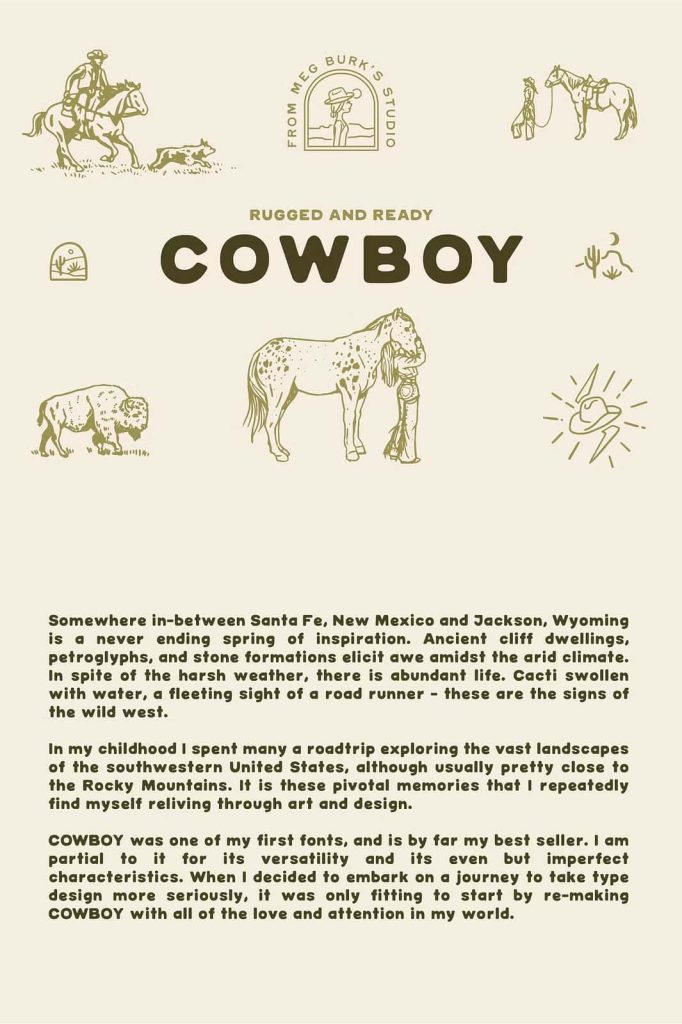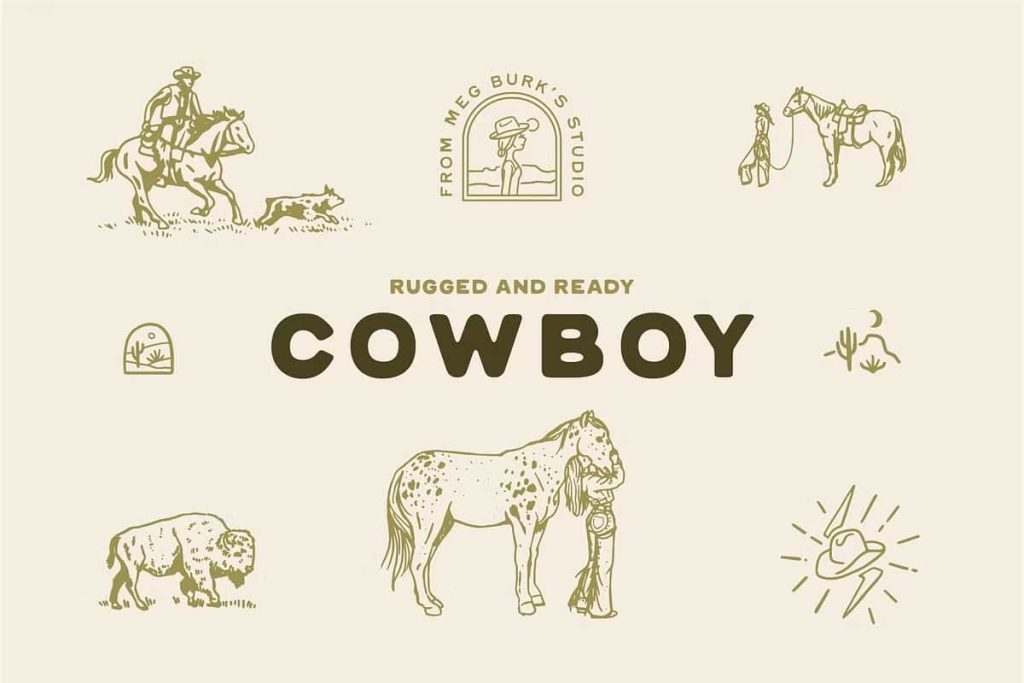
COWBOY: A Versatile Font Reimagined with Character and Craft
COWBOY stands as a defining typeface that blends versatility with authentic character. Originally created as one of the earliest font designs in its creator’s journey, it quickly became a best seller thanks to its balanced structure and distinctive imperfections. Now, COWBOY returns with a refined redesign, shaped with greater precision, care, and intention.
This updated version preserves everything that made the original special while enhancing its quality for modern design needs. It reflects a deeper commitment to type design, bringing improved consistency and clarity without losing its raw charm. The result is a font that feels both familiar and elevated, ready to support a wide range of creative applications.
A Balanced Design with Intentional Imperfection
COWBOY achieves its unique appeal through a careful balance between structure and imperfection. Its letterforms feel even and stable, yet they retain subtle irregularities that give the font personality. These imperfections do not distract; instead, they enhance the overall design by adding warmth and authenticity.
This approach allows the font to feel handcrafted while maintaining a clean and usable form. Designers can rely on COWBOY to deliver consistent results while still expressing individuality in every project.
Key Characteristics
- Balanced letterforms with natural imperfections
- Distinctive style that feels handcrafted
- Strong readability across different sizes
- Unique personality without sacrificing clarity
Refined Through Experience and Dedication
The redesign of COWBOY marks an important step in the evolution of its creator’s work. With a stronger focus on detail and craftsmanship, this version reflects a more mature approach to typography. Every curve, spacing decision, and proportion has been revisited to ensure a higher level of quality.
This process transforms COWBOY into more than just a nostalgic favorite. It becomes a professional-grade typeface that meets modern design standards while honoring its original spirit.
What’s Improved
- Enhanced spacing and alignment
- Refined character shapes for better consistency
- Improved usability across print and digital formats
- Greater attention to detail in every glyph
Versatile for a Wide Range of Creative Projects
COWBOY excels in versatility, making it a reliable choice for many types of design work. Its balanced structure allows it to adapt easily to different styles, from bold branding to casual creative projects. This flexibility makes it a valuable addition to any designer’s toolkit.
You can use COWBOY to create logos, posters, packaging, and digital content. Its character-rich design helps your work stand out while remaining approachable and easy to read.
Popular Use Cases
- Logo and brand identity design
- Posters and promotional graphics
- Packaging and product design
- Social media and digital content
Strong Identity with a Human Touch
COWBOY delivers more than just visual impact. It communicates a sense of authenticity and creativity that resonates with audiences. The subtle imperfections in its design create a human touch, making your typography feel more relatable and engaging.
This quality makes the font especially effective for brands and projects that value individuality. It helps you create designs that feel personal, expressive, and memorable.
Why Designers Choose COWBOY
- Authentic handcrafted feel
- Balanced design with unique character
- Flexible across multiple design styles
- Strong visual identity for branding
Perfect for Modern and Creative Branding
COWBOY adapts well to modern branding needs. Its clean yet expressive style allows it to fit into contemporary design trends while maintaining its own identity. Whether you are building a bold brand or a more relaxed creative project, this font provides the right balance of strength and personality.
Its refined structure ensures that it performs well across different platforms, from print materials to digital interfaces. This makes it a dependable choice for designers who need consistency and versatility.
Recommended Applications
- Branding and identity systems
- Website and UI design
- Editorial and print layouts
- Creative campaigns and storytelling
A Font That Evolves with Purpose
COWBOY represents growth, refinement, and dedication to the craft of typography. It shows how a strong concept can evolve into a polished and professional tool without losing its original character. This balance between past and present makes it a unique and valuable typeface.
Choose COWBOY when you want a font that combines versatility, authenticity, and thoughtful design. It transforms your typography into a powerful visual element that communicates both style and substance.